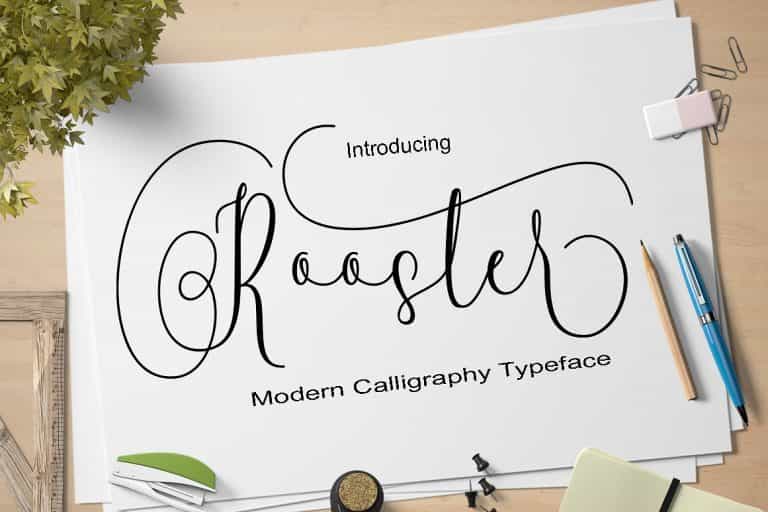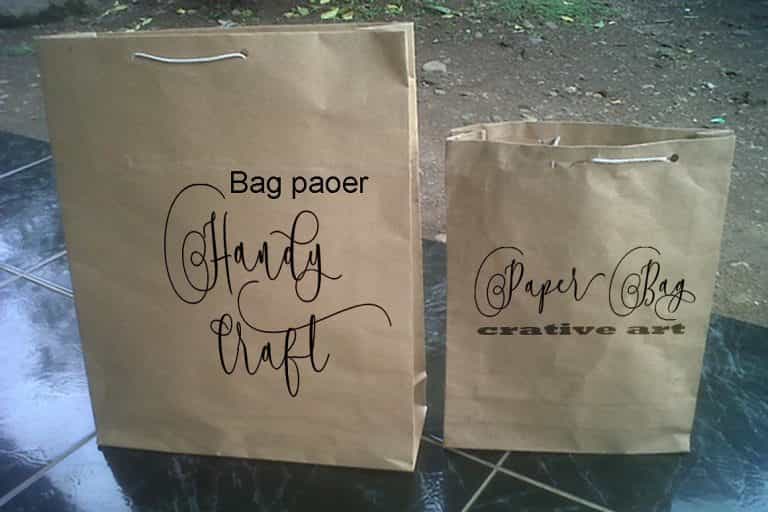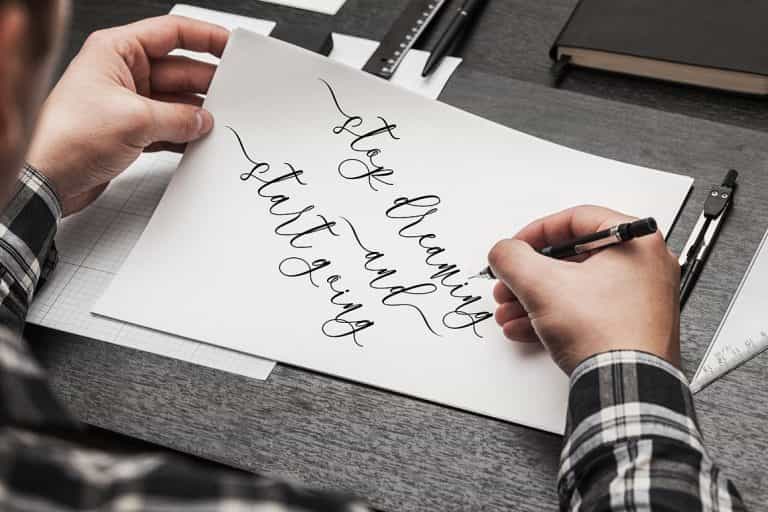
Introducing Rooster Font. Rooster is a fashionable calligraphy font which has an uneven baseline, smooth line, classic and elegant touch. Can be employed for a number of different tasks. and it includes such things as headings, signature, logos, wedding invitation, t-shirt, letterhead and much more.